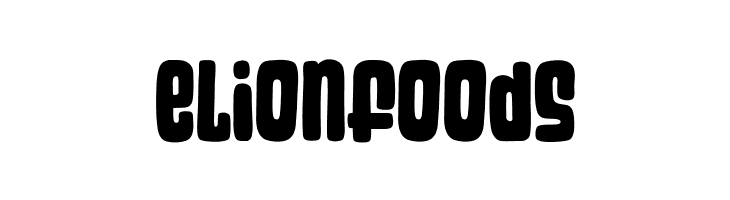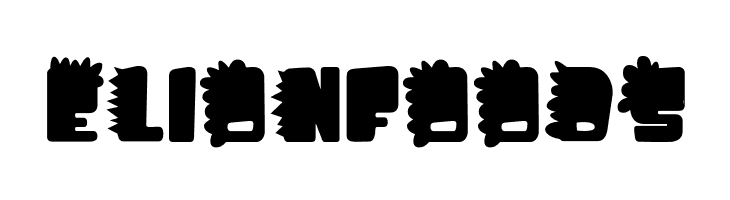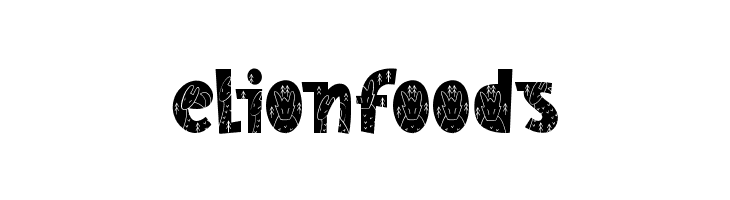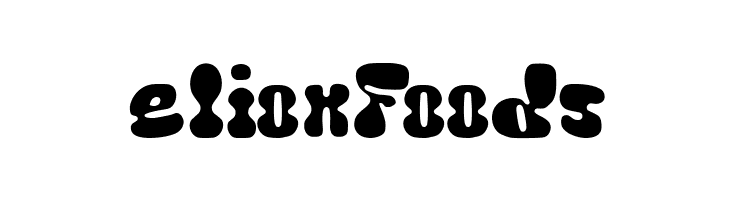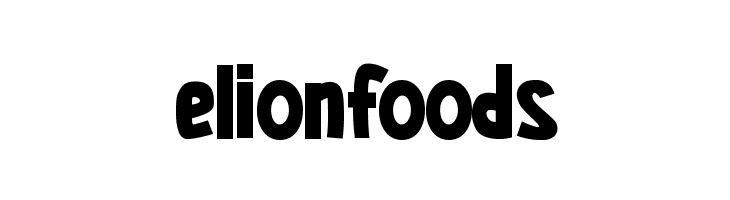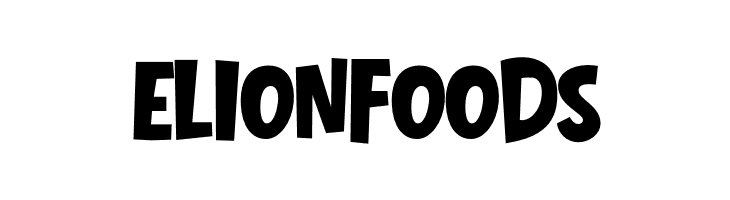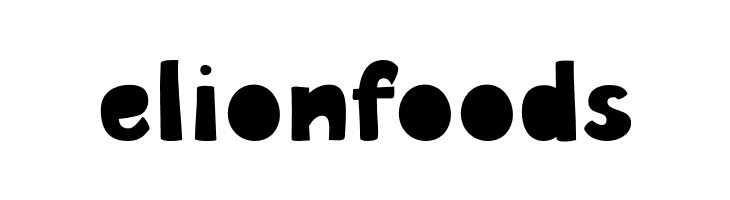
( Fonts by Khurasan™ )
A bold, rounded font with a playful, retro-modern style.
( Fonts by Kong Font )
A playful, dinosaur-themed font with bold, cartoonish characters.
( Fonts by PutraCetol Studio )
A bold, decorative font with whimsical patterns and a hand-drawn feel.
( Fonts by Jetsmax Studio )
A bold, playful font with rounded, bubble-like characters and a retro-modern style.
Bold, 3D decorative font with playful style.
( Fonts by Pinisiart )
Bold, playful font with irregular shapes.
( Fonts by Eko Bimantara )
Bold, playful display font with a hand-drawn look.
( Fonts by BlackFridayFont FMF )
Bold and playful with irregular shapes.
( Fonts by Misti's Fonts )
Bold, playful display font with hand-drawn, irregular shapes.
( Fonts by Mocha Frappuccino )
A bold, playful sans-serif with hand-drawn, cartoonish character.